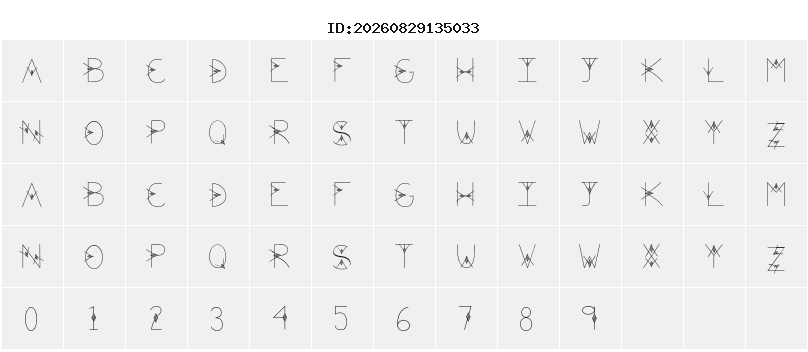
The Valley Preview
• Font Name: The Valley
• Designer: Jennifer Dryman
• Manufacturer: Jennifer Dryman
About The Valley.otf
The Valley.otf is a modern, elegant sans-serif font designed for ultimate readability and visual harmony. Perfect for branding, headlines, web design, and print materials.